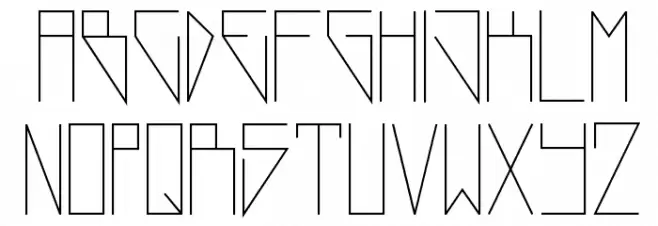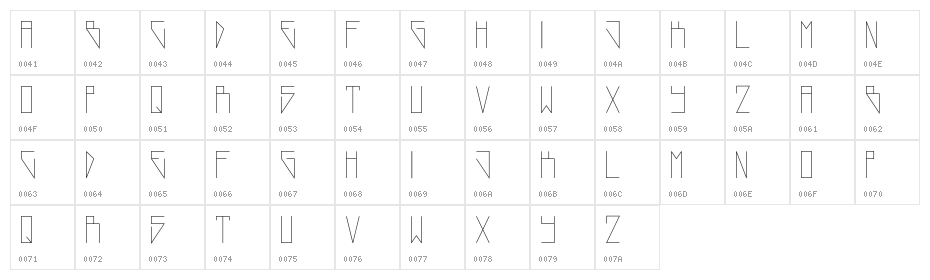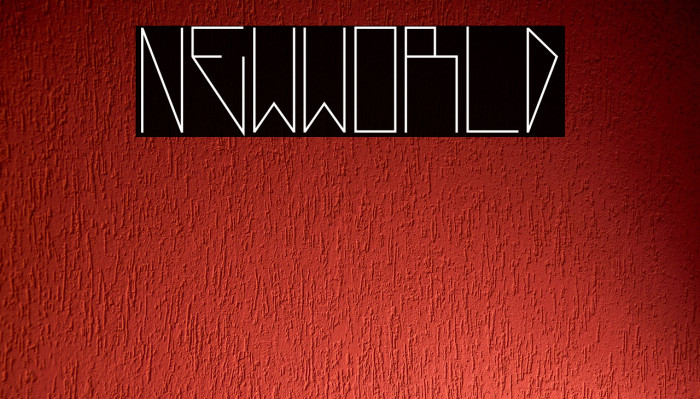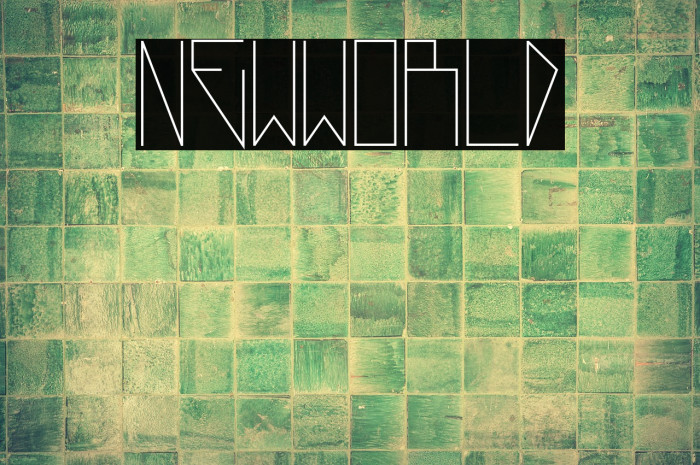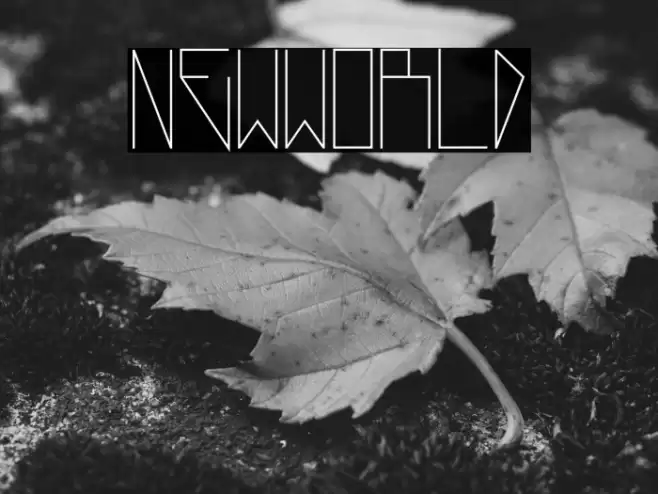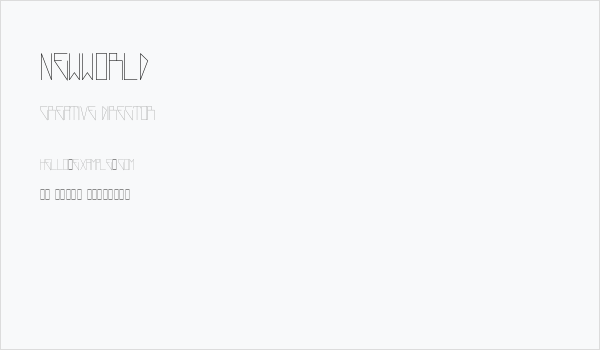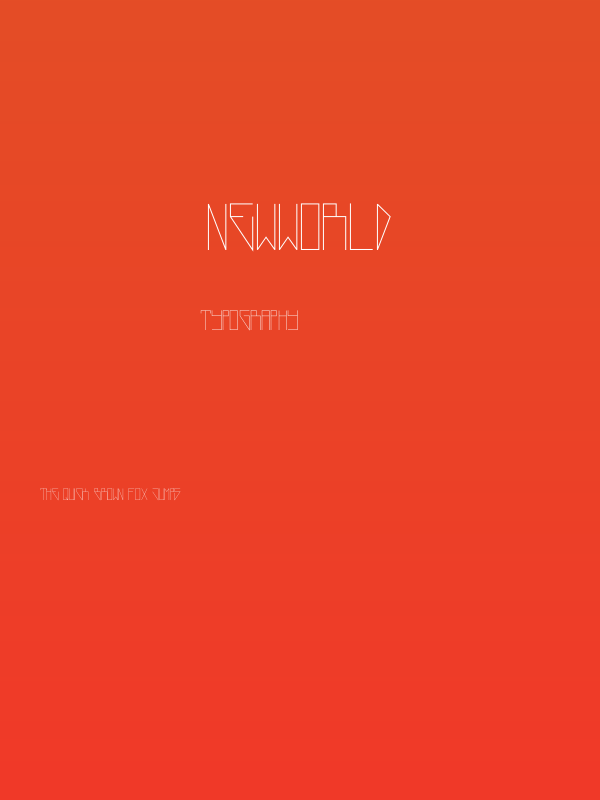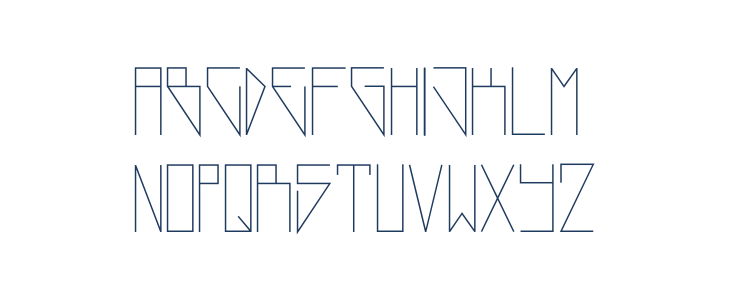
NewWorld Font
NewWorld Description
This font features a highly geometric and angular design, characterized by its sharp, straight lines and distinct triangular shapes. The uppercase letters are constructed with a minimalist approach, emphasizing vertical and diagonal strokes that create a futuristic and avant-garde appearance. The consistent line thickness throughout the characters contributes to a cohesive and uniform look, while the absence of curves and rounded edges gives it a stark, modern feel. The font's unique style makes it stand out, offering a bold statement in any design context.
| Proposed Projects | Ideal for sci-fi themed projects, modern branding, posters, and digital interfaces. |